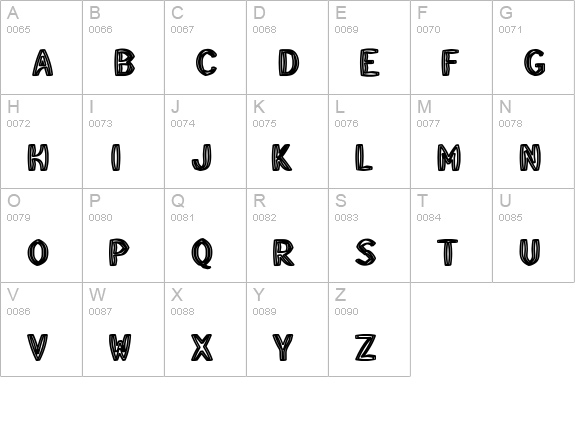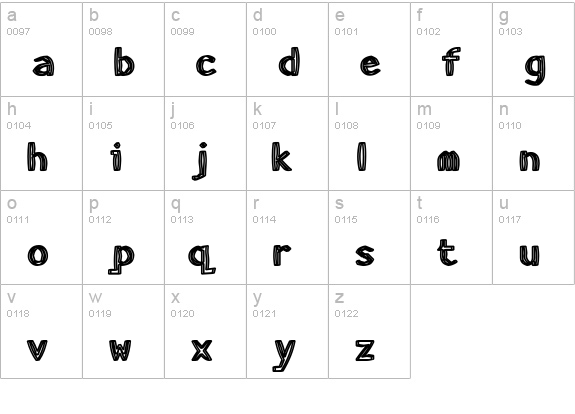
HeavyWood Font Details
HeavyWood font is a bold and powerful display typeface that exudes strength and elegance. Its robust and sturdy letterforms are expertly crafted to convey a sense of solidity and reliability. With its thick strokes and sharp edges, HeavyWood is perfect for making a bold statement in any design project. This versatile font is suitable for a wide range of applications, from logos and headlines to posters and packaging. Its timeless and classic design ensures that it will never go out of style, making it a great choice for both contemporary and traditional designs. One of the best features of HeavyWood font is that it is available for free. That's right, you can freely download this amazing font at FontsMarket.com. This means that you can enhance your designs with this exceptional typeface without having to worry about any costs. Whether you are a professional designer or a hobbyist, HeavyWood font is a valuable addition to your font collection. So why wait? Download HeavyWood font now and add a touch of strength and elegance to your designs. With its bold and powerful presence, this font is sure to make a lasting impression. Don't miss out on the opportunity to use this freely available font to elevate your design projects to new heights. Get creative and let HeavyWood font be your guide.